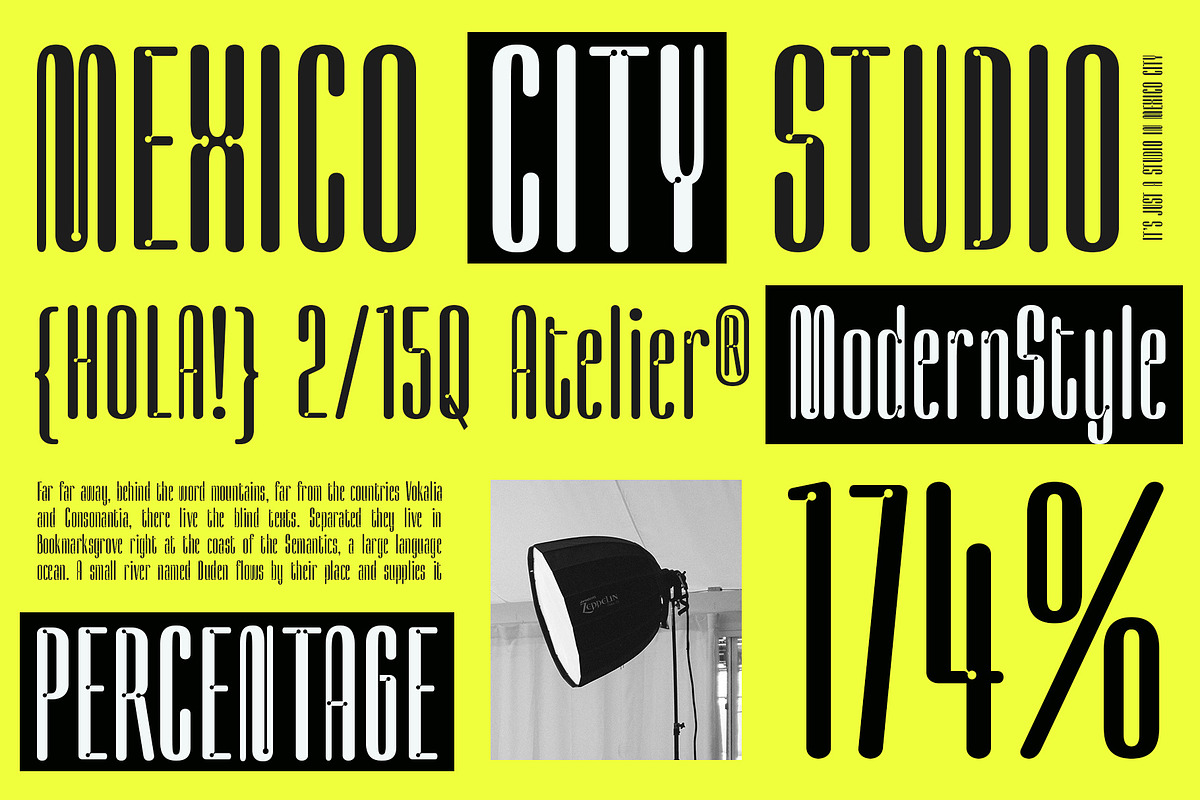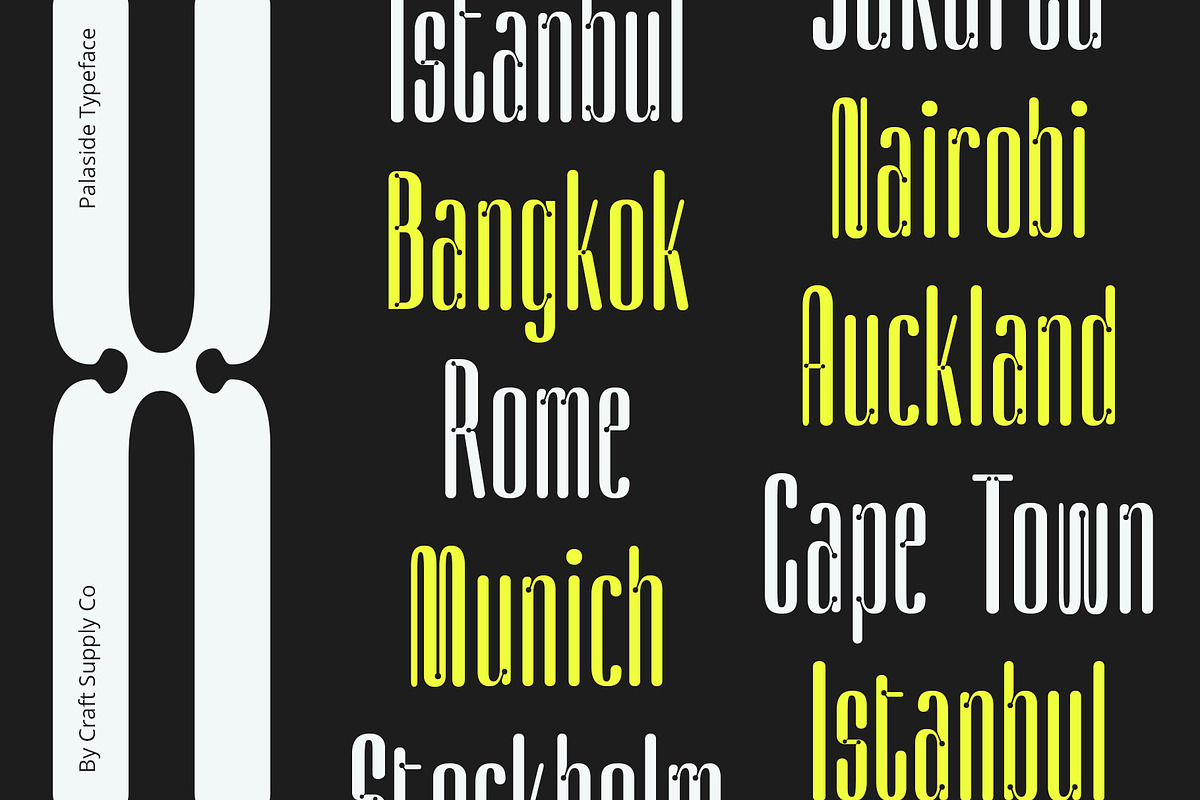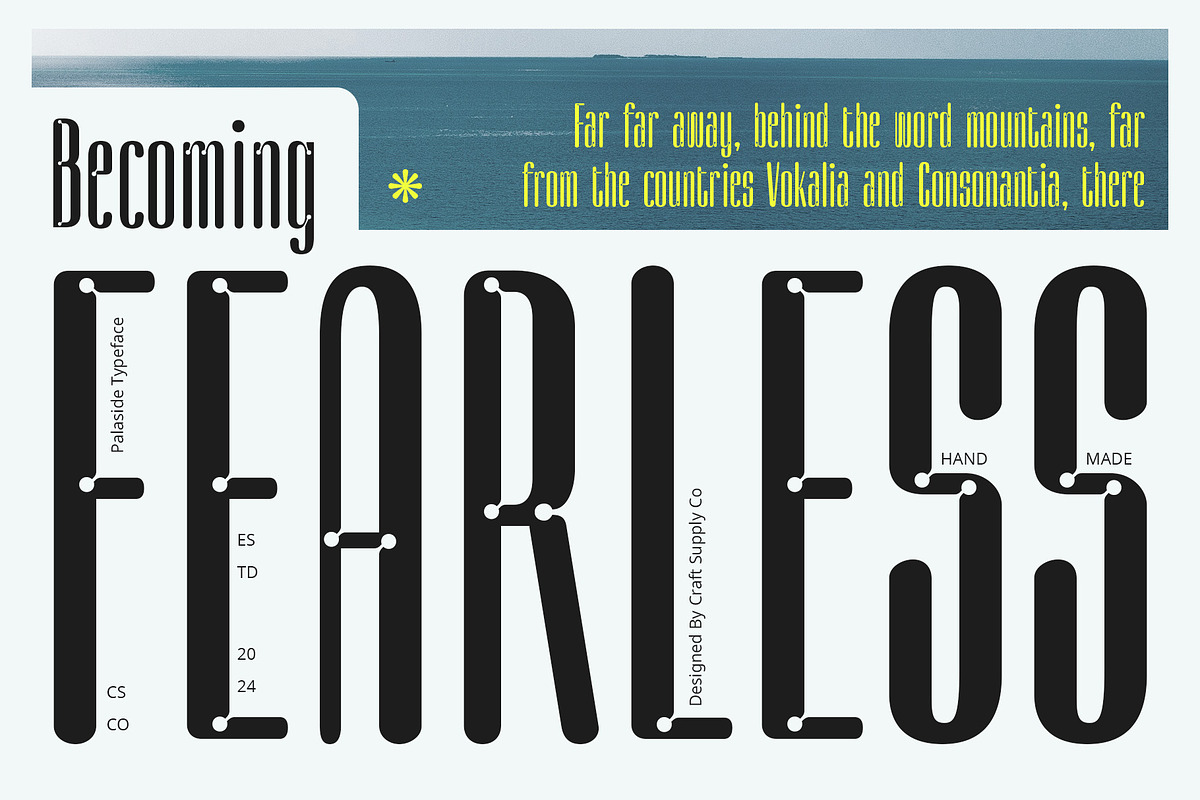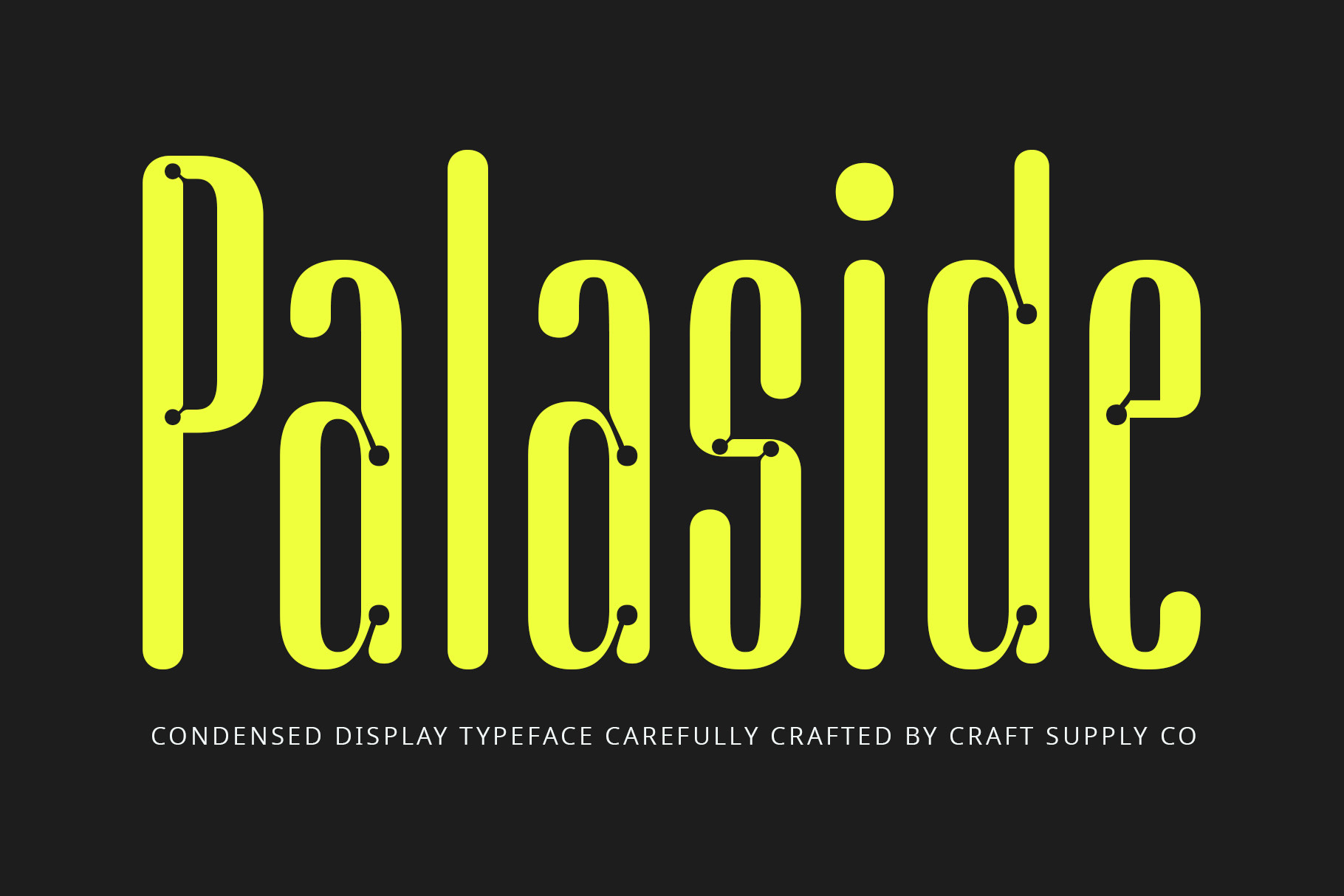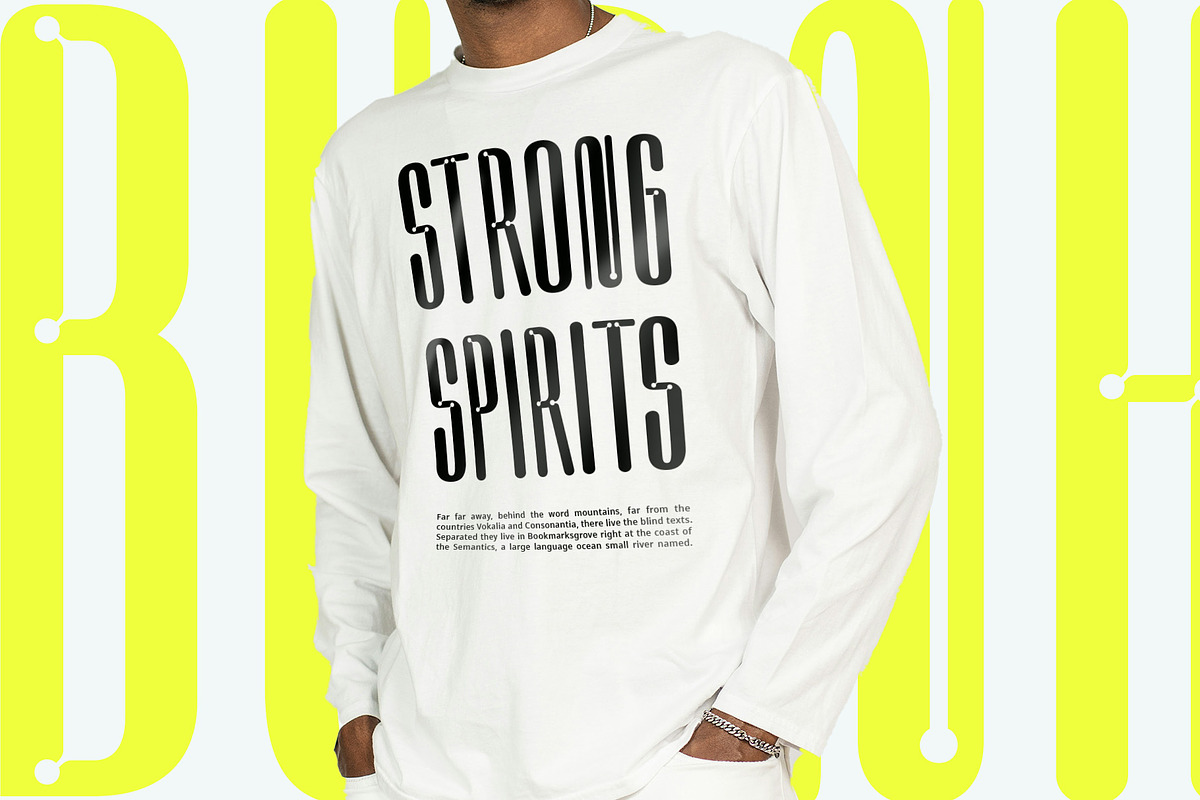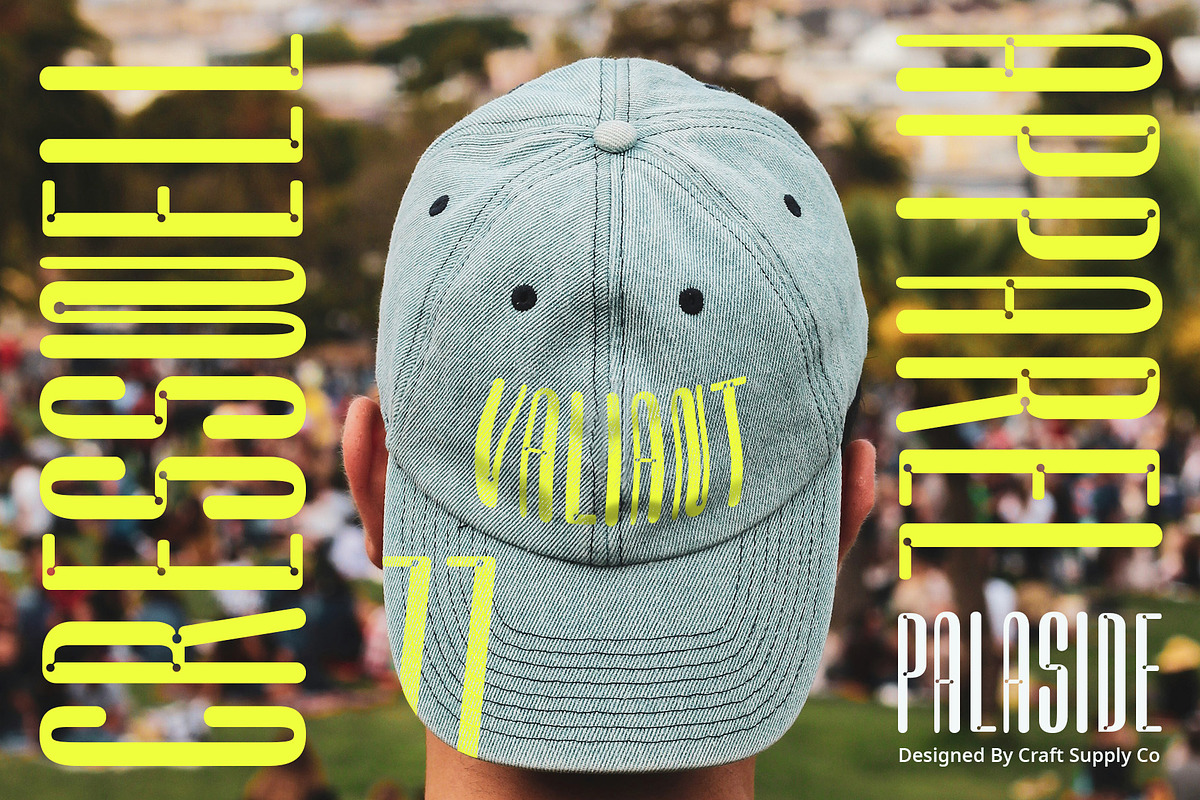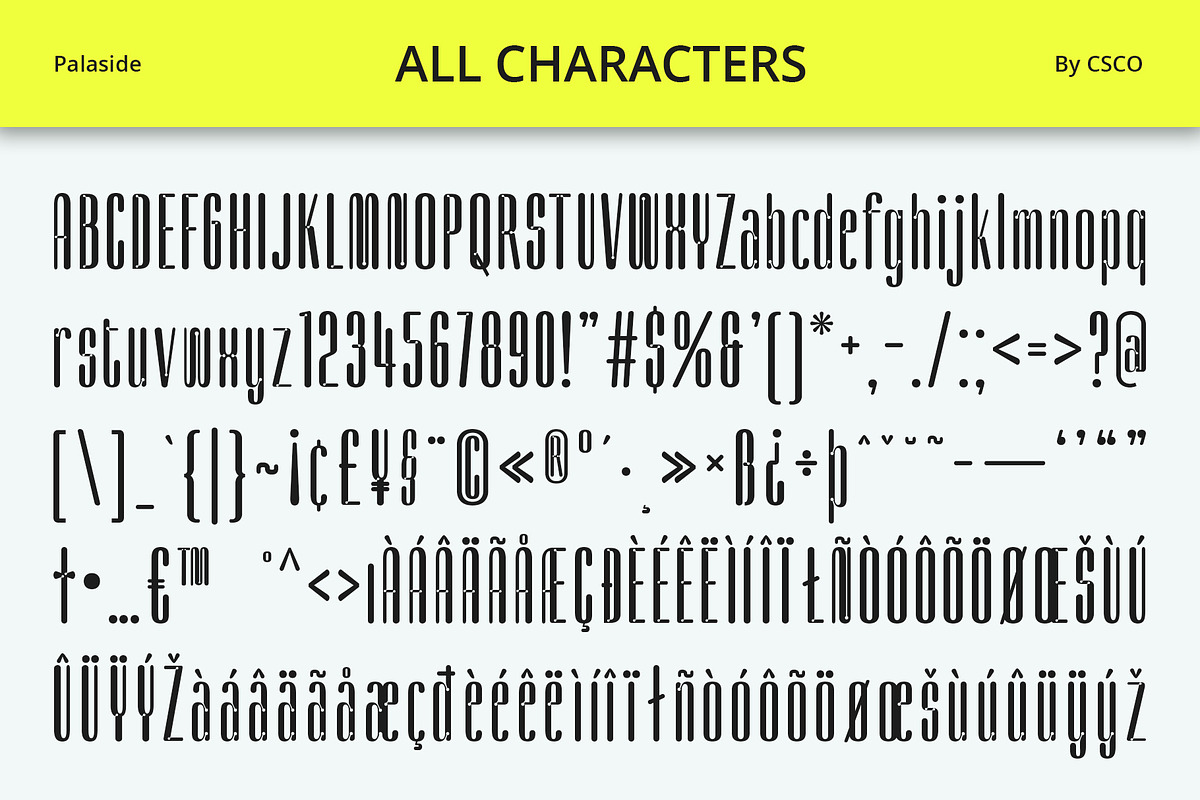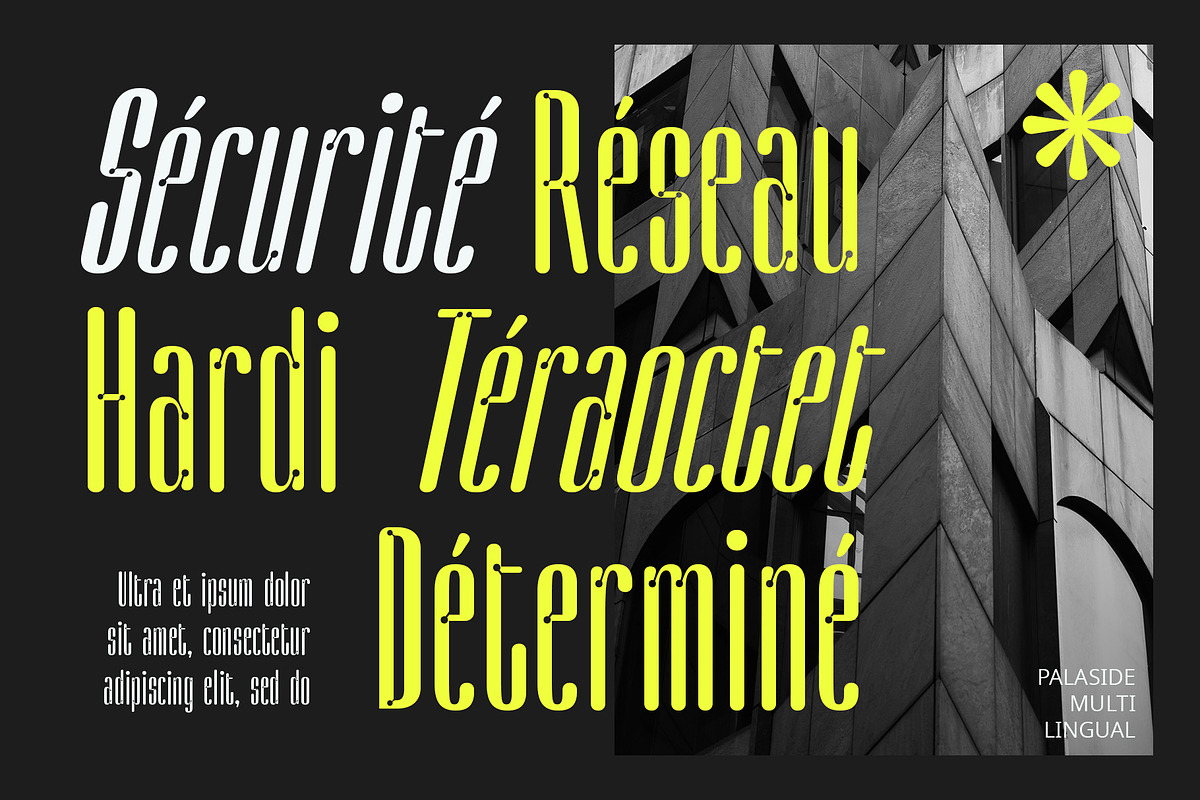
Palaside – Inktrap Font
Palaside – Inktrap Font: Where Style Meets Substance
Condensed Sans-serif with Inktrap Style
Palaside Font is a condensed sans-serif font with an inktrap style, adding character and charm to any design. Its unique design makes it suitable for a wide range of applications, from headlines to branding and everything in between.
Distinctive Inktrap Detailing
The inktrap style of Palaside Font adds a distinctive touch to its condensed form. The subtle detailing enhances the font’s visual appeal, making it stand out in any design while maintaining readability and elegance.
Versatile and Stylish
Whether used for headlines, posters, or branding, Palaside Font offers versatility and style. Its condensed form allows for efficient use of space, making it ideal for projects where typography plays a key role in conveying the message.
Perfect for Any Design
With its unique style and versatile nature, Palaside Font is suitable for any design project. Whether you’re creating a sleek corporate identity or a stylish editorial layout, Palaside Font adds a touch of sophistication and charm to your designs.